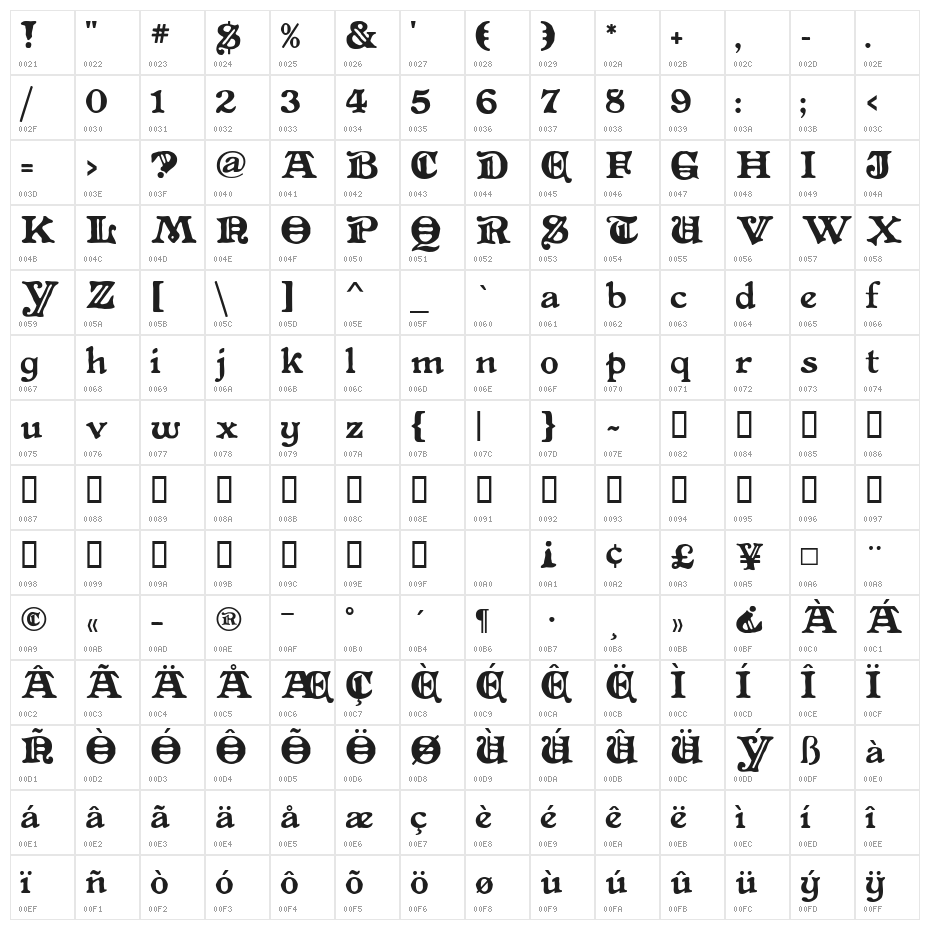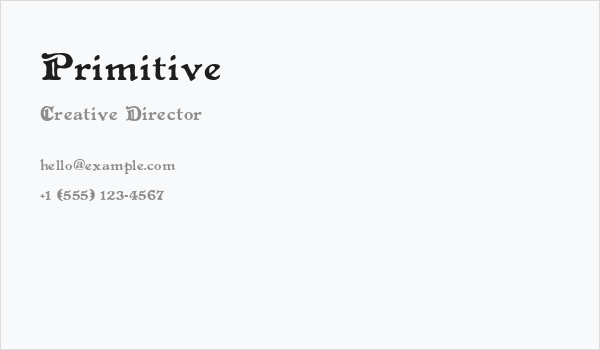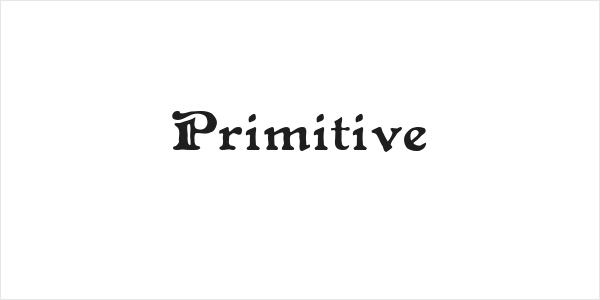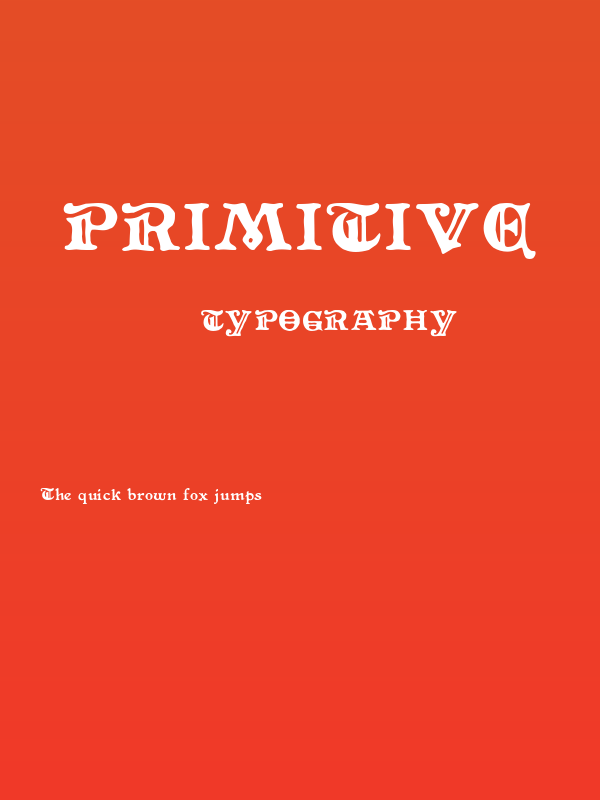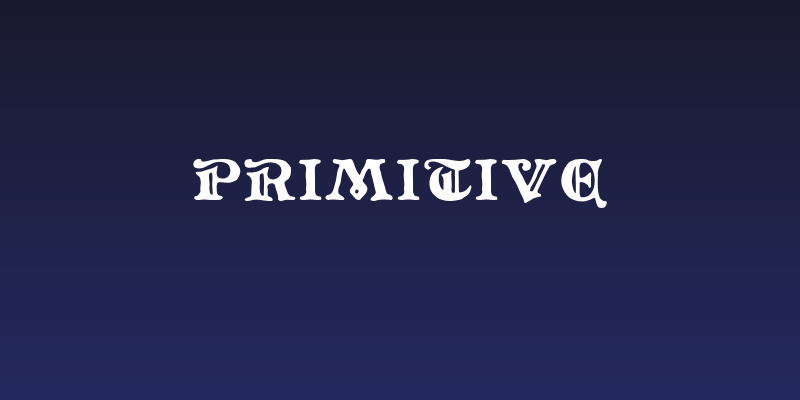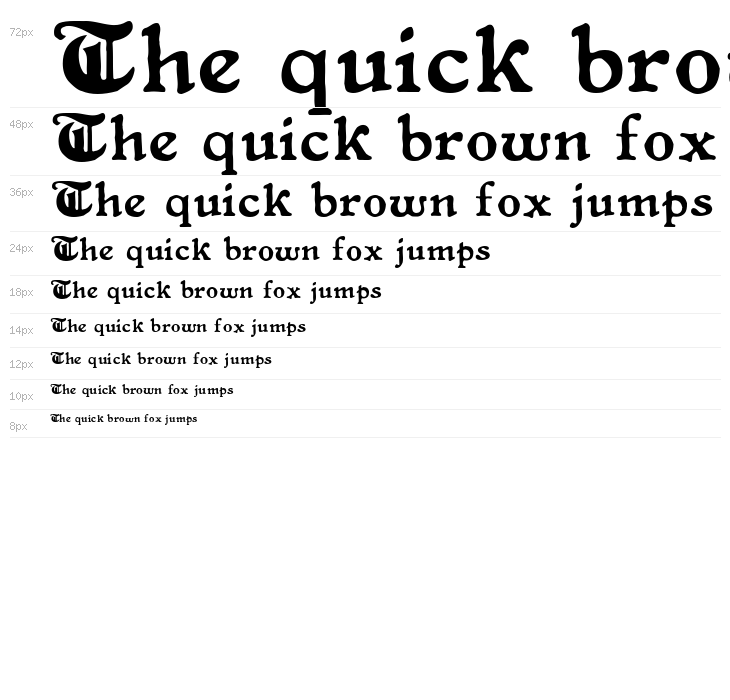
Primitive Font
Primitive Description
This font features a bold and decorative style with a distinct medieval or gothic influence. The uppercase letters are characterized by intricate serifs and flourishes, giving them a dramatic and ornate appearance. The lowercase letters maintain a similar style but with slightly less embellishment, ensuring readability while preserving the decorative theme. The numerals are bold and consistent with the overall aesthetic, making them stand out. Special characters are uniquely styled, adding to the font's distinct personality. This font is well-suited for projects that require a historical or fantasy theme, such as book covers, posters, or themed event invitations.
| Overall Style | Vintage |
| Proposed Projects | Ideal for book covers, posters, themed event invitations, and fantasy projects. |